The design style that combines elements of nostalgia with visual innovation is one of today’s popular approaches. This approach uses a contemporary retro font that reuses classic aesthetics for a more modern and relevant look. As a result, this combination gives a nostalgic impression that remains in line with current visual developments.
Modern design predominantly employs a contemporary retro font as one of its typography styles. This style combines the classic elements with a more contemporary design approach, resulting in a look that remains relevant to current trends. Hence, the visual characters born from the style evoke nostalgia without appearing outdated.
In its practice, this style is often implemented in various design needs, such as branding, posters, and digital media. This type of typography can strengthen the visual identity and create a unique attraction compared to other typography styles. This article will talk about the top 11 contemporary retro font recommendations that can give you a reference to develop your designs.
Quintor presents a strong visual through its bold, high-contrast letterforms and refined serif details. The design style combines a classic vintage feel with a modern touch, resulting in a relevant look. Its solid letter proportion gives a stable and bold feel, while its decorative element makes this font look flexible. As a contemporary retro font, Quinthor is effective for designs that require a strong visual identity.
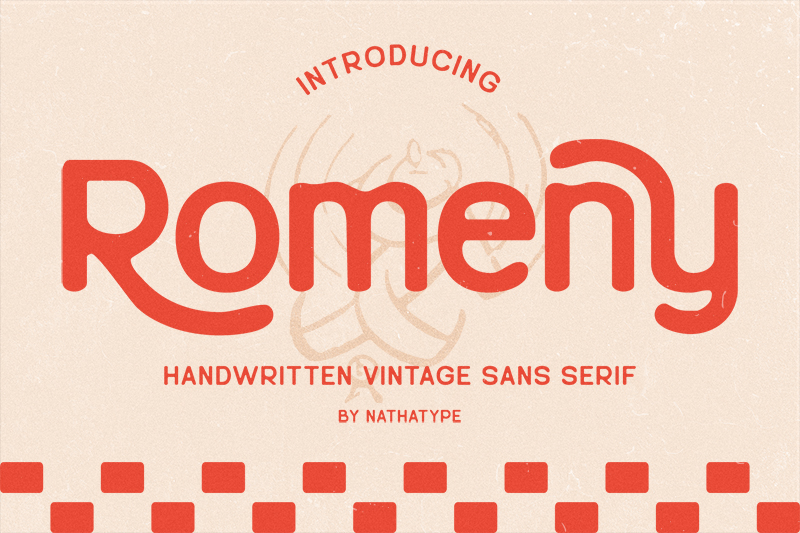
This font presents a classic and modern aesthetic combination through its gentle handwritten letterforms with rounded and flowing strokes. Romney highlights the flexible and personalized feel typical of vintage style while paired with a simple sans-serif structure that is easy to read. The uniqueness lies in its long, flowing tail variation. The visual rhythm that feels dynamic also contributes a distinctive feature for Romeny as a contemporary retro font. Therefore, it is effective to evoke a warm, friendly, and authentic feel for various designs that use this font.
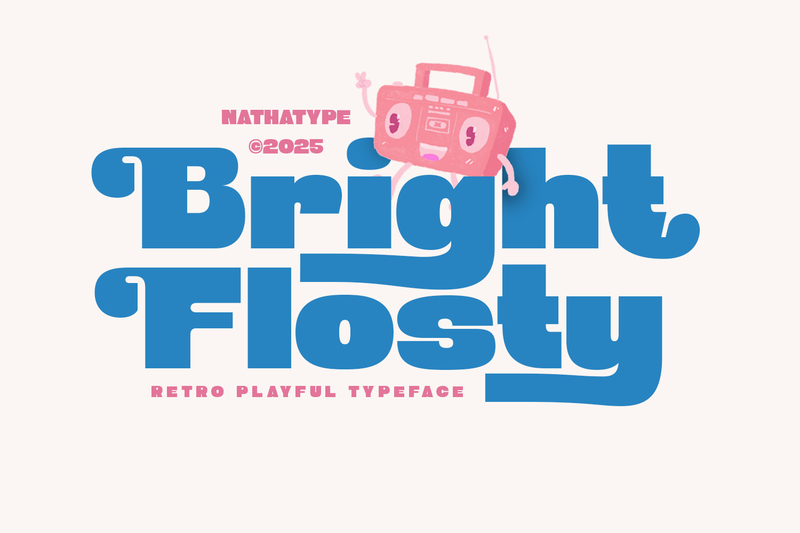
The letter design in this font reflects a vintage nuance with the combination of playful and modern approaches. Bright Flosty shows a bold and curvy letterform that creates an expressive feel. Its chunky, cartoon-style letterform creates a vibrant visual rhythm that draws attention. Its uniqueness lies in its balance between a strong retro style with a fresh, contemporary touch and a playful and fun nuance. This font is perfect for creative designs that seek a cheerful and characterful look.
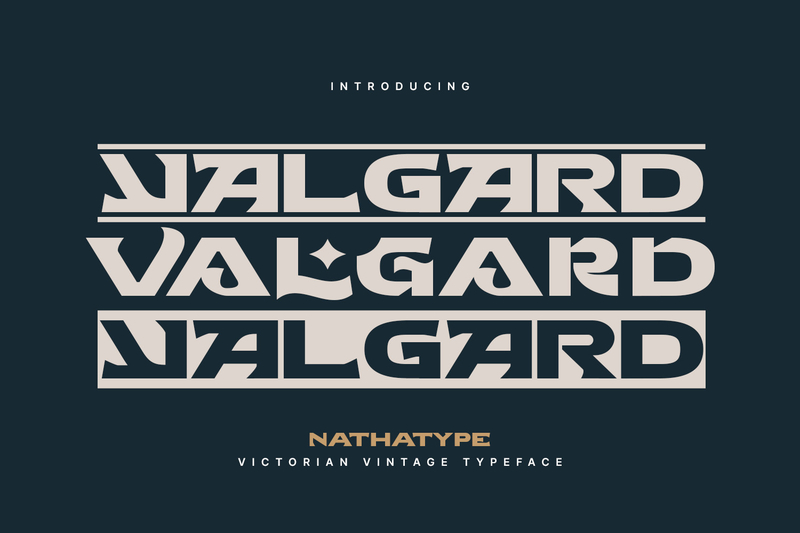
The highlights of Valgard’s characteristics are its firm and symmetric letterform. Its sturdy, geometric construction and the dominant straight lines give additional characteristics to this font. Valgard conveys a vintage nuance with Victorian style through its stiff and structured decorative elements, while the modern elements provide a contemporary touch. Its distinct characteristic lies in its sharp corner cuts and the detailed shapes that feel mechanical. As a contemporary retro font, Valgard is suitable for designs that emphasize a solid, masculine, and classy character.
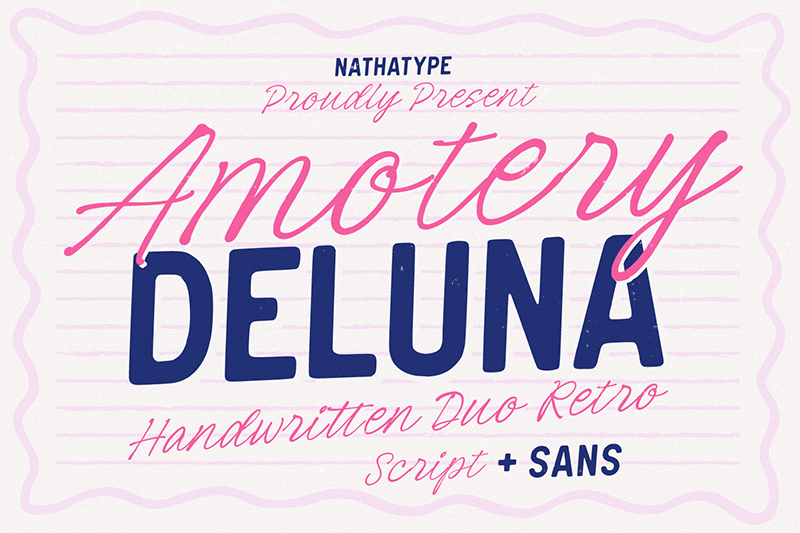
The distinct feature of Amotery Deluna lies in the typographic details that combine a smooth and expressive handwritten script style with a clean and bold sans-serif font in one visual unity. This font pairing presents a balanced contrast between the light, personal script strokes and a stable and easy-to-read sans-serif structure. This combination creates a clear visual hierarchy while delivering a warm retro feel. As a contemporary retro font, Amotery Deluna is ideal for communicative, elegant, and modern design.
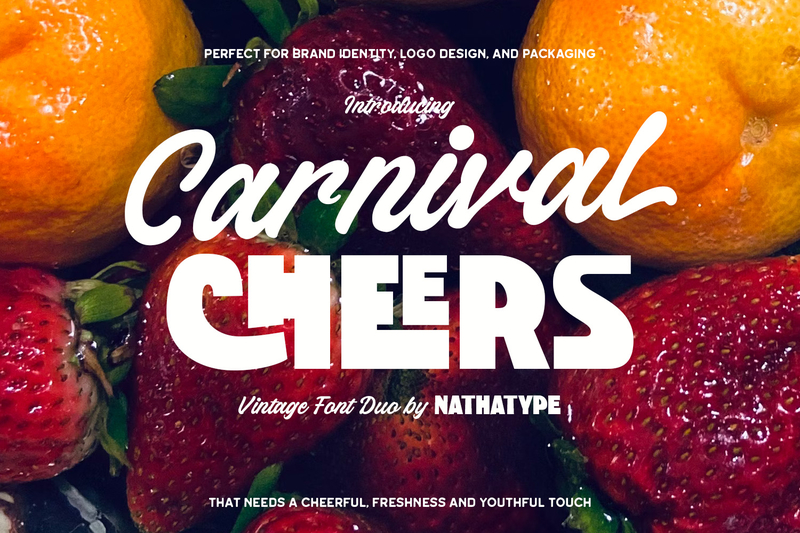
This font duo visually offers a strong impression through the combination of a bold and solid sans serif with a more expressive and flowing script element. Carnival Cheers presents a cheerful retro nuance through the contrast between the strong letter structure and the light and dynamic script stroke. This combination creates a clear visual hierarchy and gives a fresh and energetic feel. In the context of contemporary retro font styles, Carnival Cheers supports the creation of vibrant, communicative, and eye-catching designs.
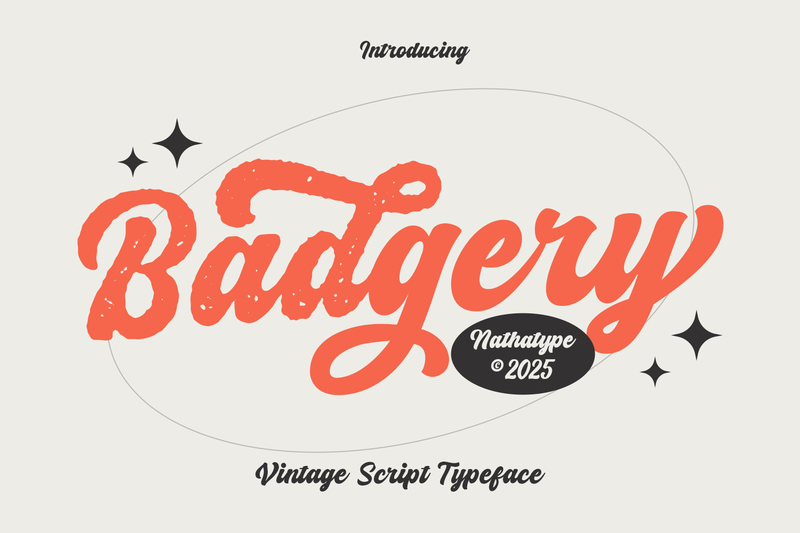
Badgery combines classic elements with an expressive contemporary touch. This font features a bold, flowing script that conveys a sense of warmth and confidence. Its dynamic letter curves and an authentic hand-lettered texture enhance the vintage feel. Other distinctive features include smooth letter joints, rounded terminals, and decorative yet restrained swash details. Badgery is effective for branding poster designs and digital media with a modern, nostalgic feel.
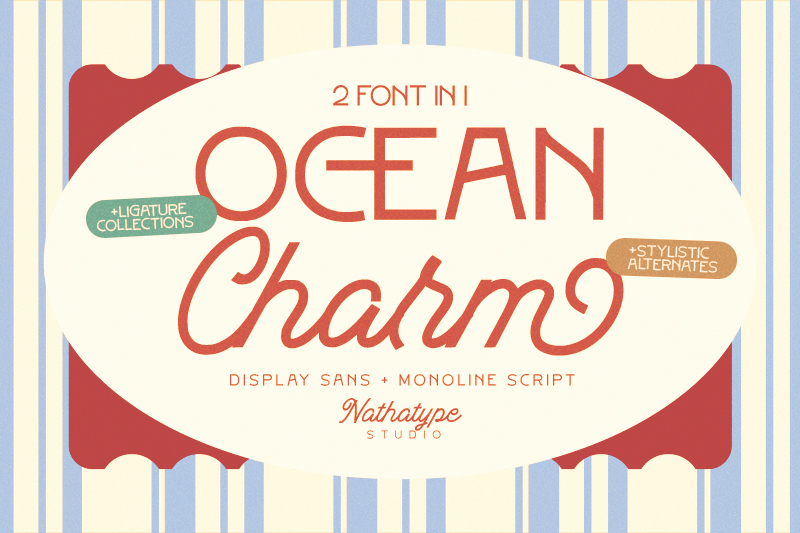
Ocean Charm emphasizes visual exploration through two complementary styles: a display sans and a monoline script. This font presents a unique contrast between sans’ firm yet modern letter structure and script’s gentle and flowing elements. Its distinctive feature is further enhanced by the presence of ligatures and stylistic alternates that allow a richer visual variation without being overdone. Therefore, Ocean Charam embodies a retro feel and adapts to the contemporary design that requires flexibility.
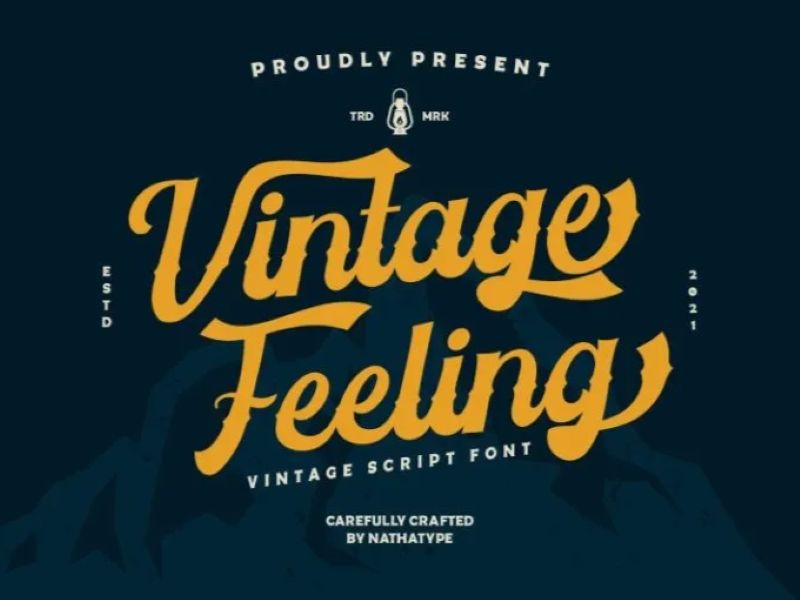
Overall, contemporary retro font styles blend classic aesthetics with a modern approach to maintain their relevancy. Each font has its characteristics, allowing it to be adapted to various design needs. Therefore, explore various contemporary retro fonts to suit your desired design concept. Use references as a guide to create a more engaging, consistent, and distinctive design.